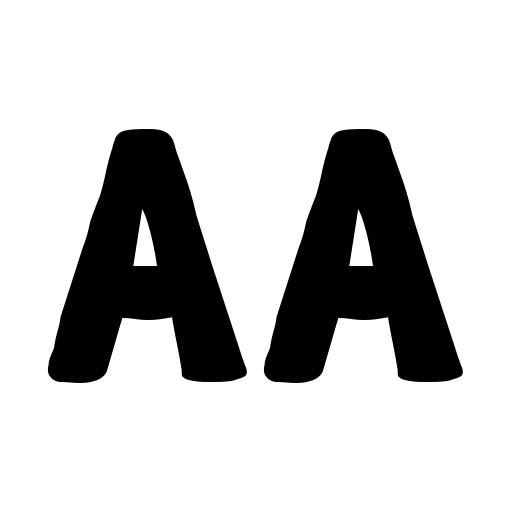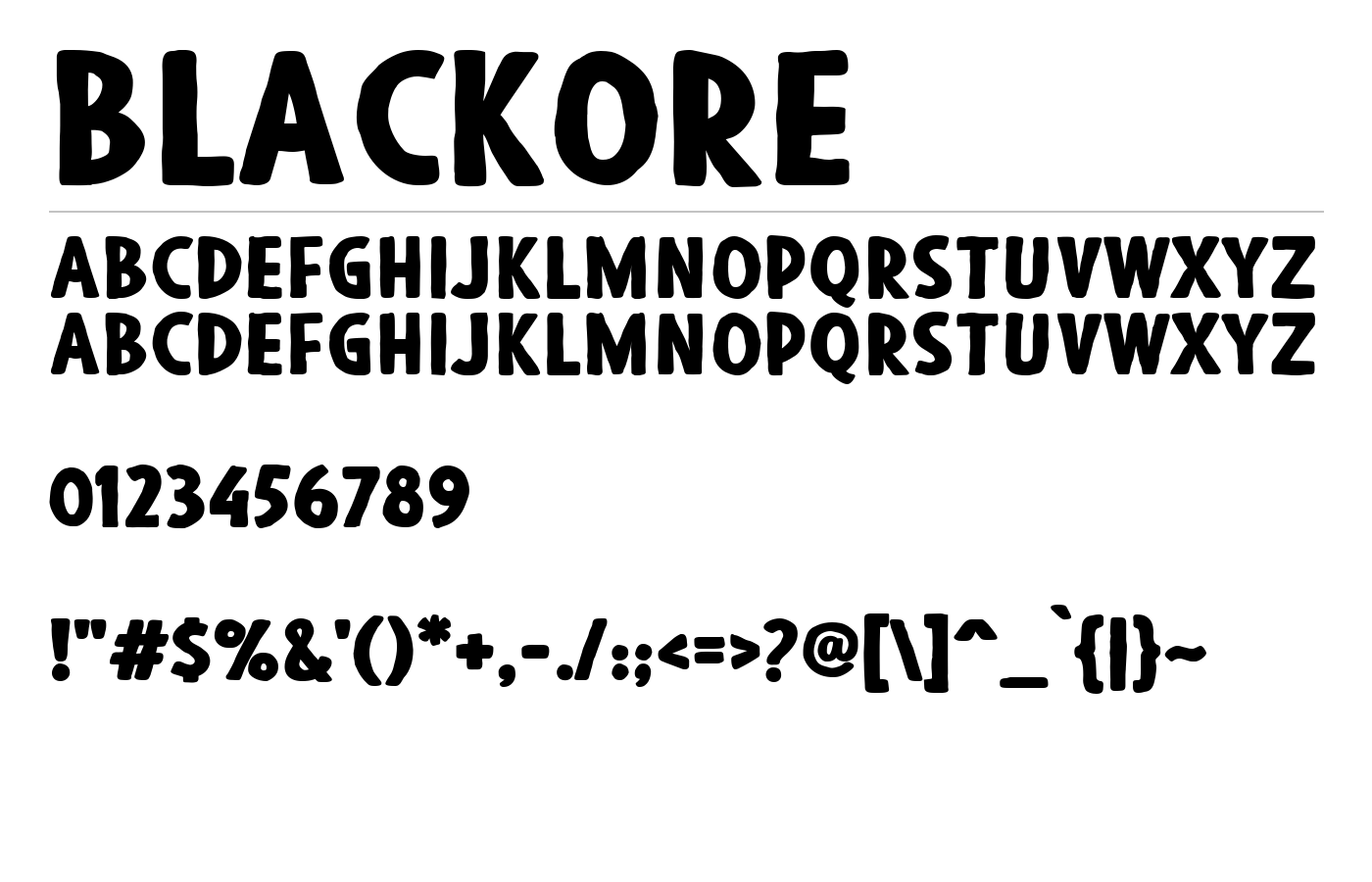
Blackore is a bold, hand-drawn sans serif font with a playful and slightly quirky personality. Its irregular, chunky letterforms give it a casual, friendly feel, making it perfect for creative projects, informal branding, and fun headlines that want to stand out with a handcrafted touch. This font works well in children’s books, posters, packaging, and other designs where a warm, approachable vibe is desired.
Blackore Font